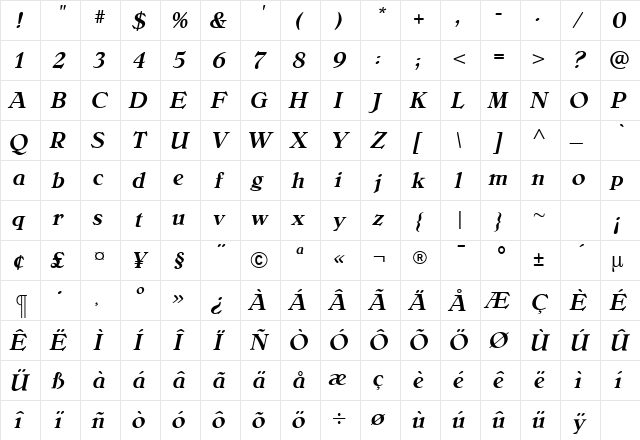
Complete BelliniMediumItalic Regular glyph index. Displaying only characters natively supported by BelliniMediumItalic Regular font.
BelliniMediumItalic is a composed and adaptable typeface that performs quietly and consistently across a wide range of design contexts. The slanted form adds forward momentum and visual energy.
Pro Tip: Use BelliniMediumItalic for emphasis, pull quotes, and subheadings where its slanted energy can add rhythm to the layout.